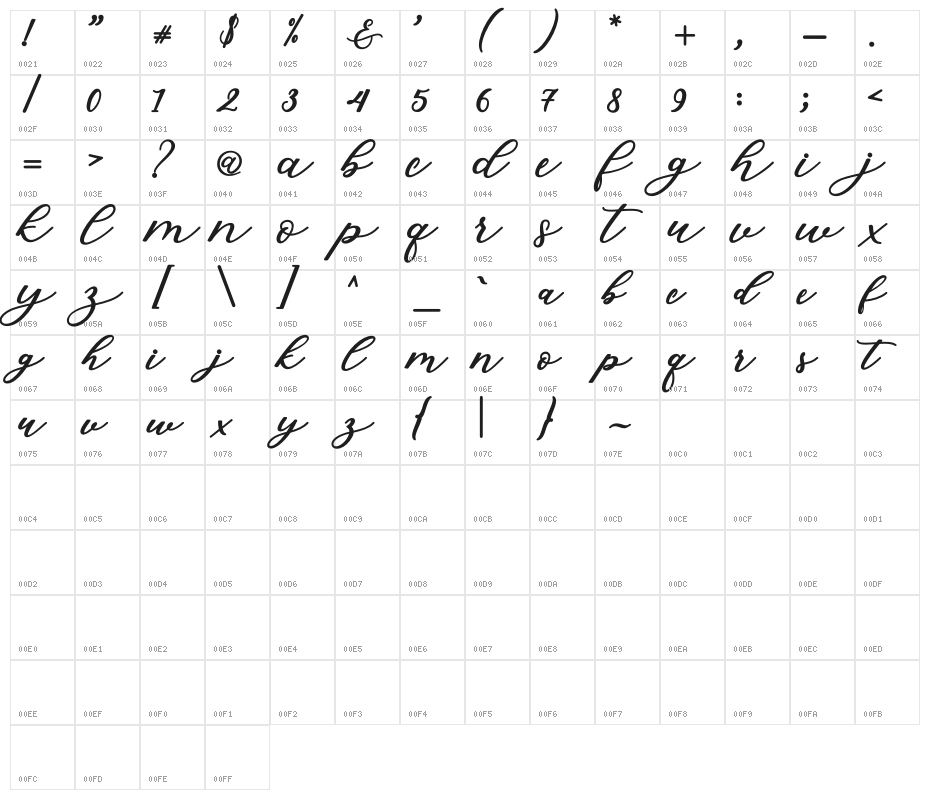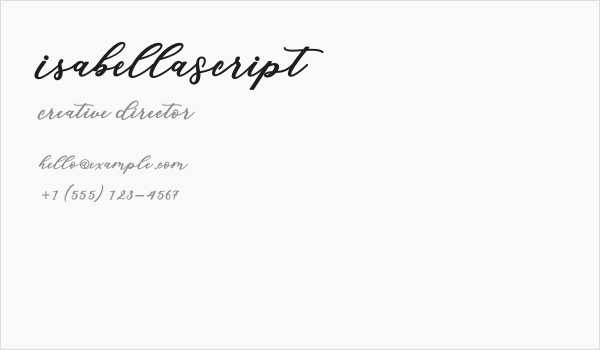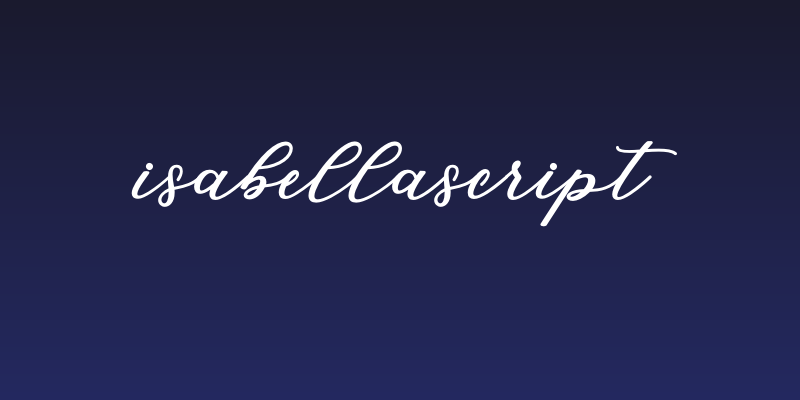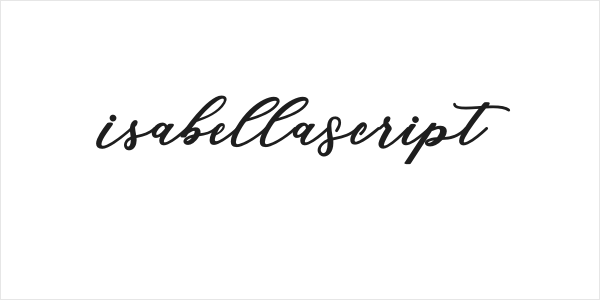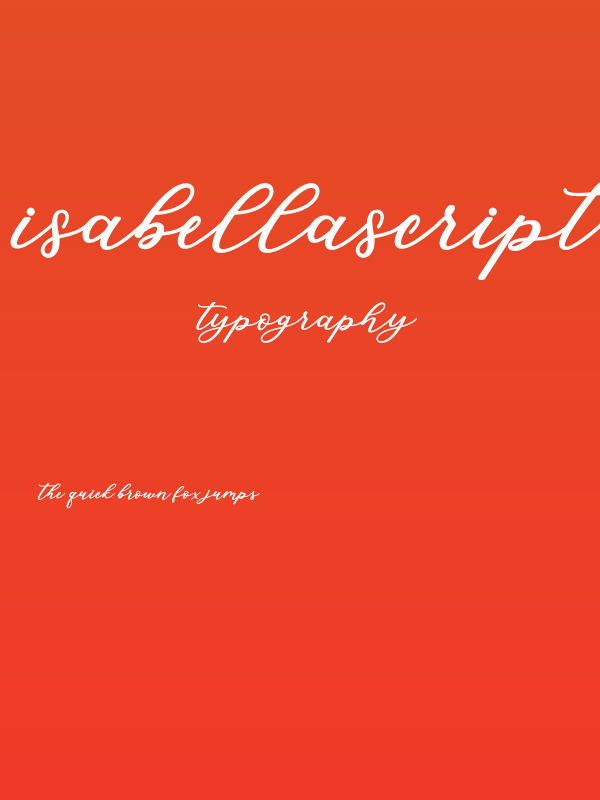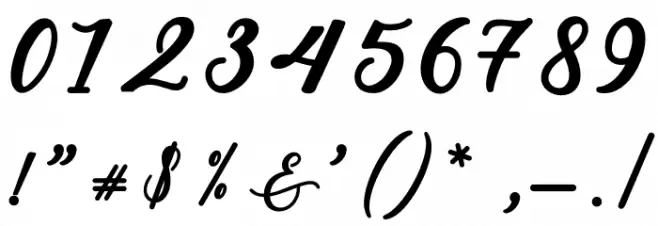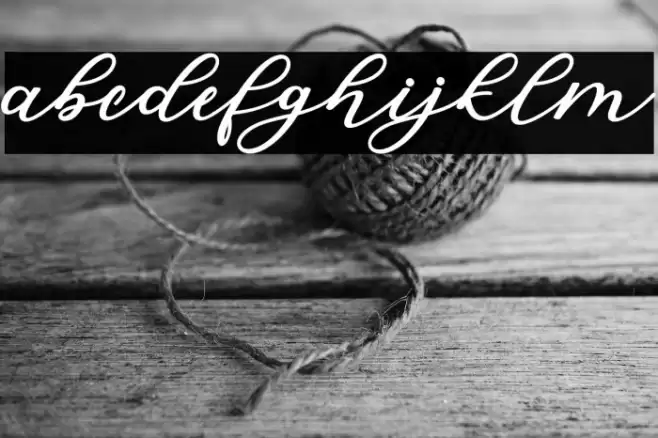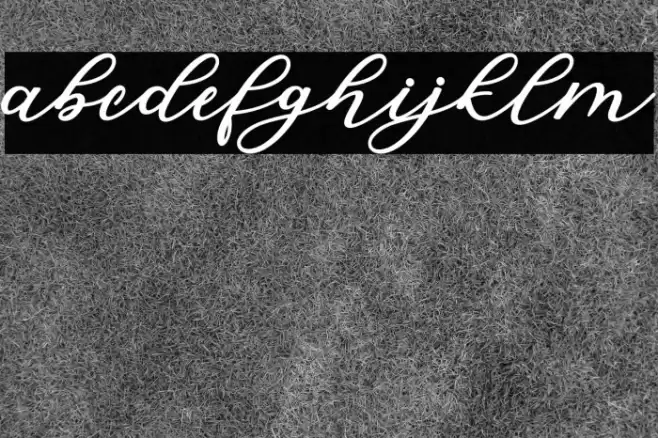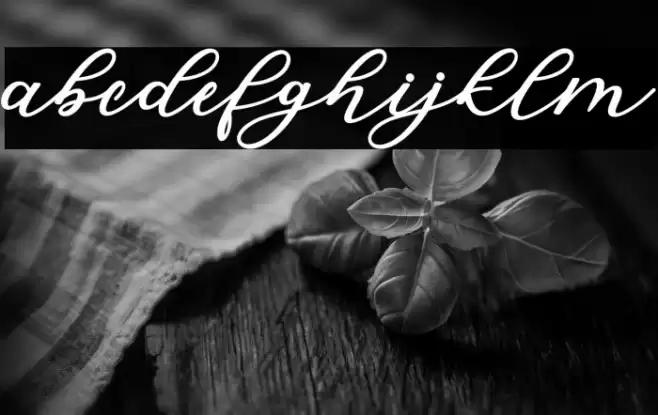
IsabellaScript Font
IsabellaScript Description
This elegant script font features smooth, flowing lines that mimic the natural handwriting style. The characters are connected, creating a seamless and fluid appearance. The uppercase letters are slightly larger and more ornate, while the lowercase letters maintain a consistent and graceful flow. The numbers and special characters are designed to complement the overall script style, adding a touch of sophistication. This font is perfect for projects that require a personal and elegant touch, such as invitations, greeting cards, and branding materials. The overall look is both classic and modern, making it versatile for various design needs.
| Overall Style | Elegant and Modern |
| Use Case | Headlines, Invitations, Branding |
| Proposed Projects | Ideal for wedding invitations, greeting cards, personal branding, and elegant logos. |